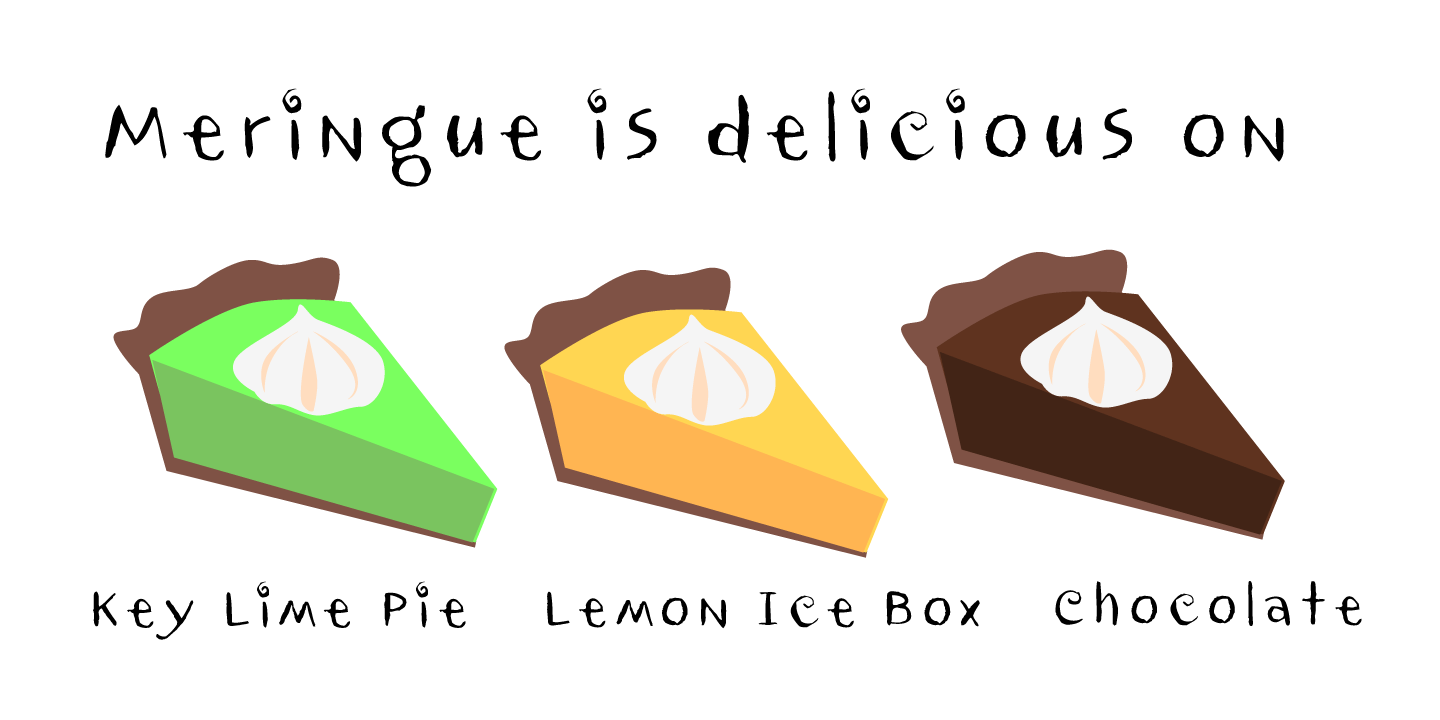
Meringue
Font Family by Jess Latham
Can you smell that delicious aroma? Something is cooking in the oven! It's a little homemade, a little whimsy. Smells like a recipe for a great font to me!